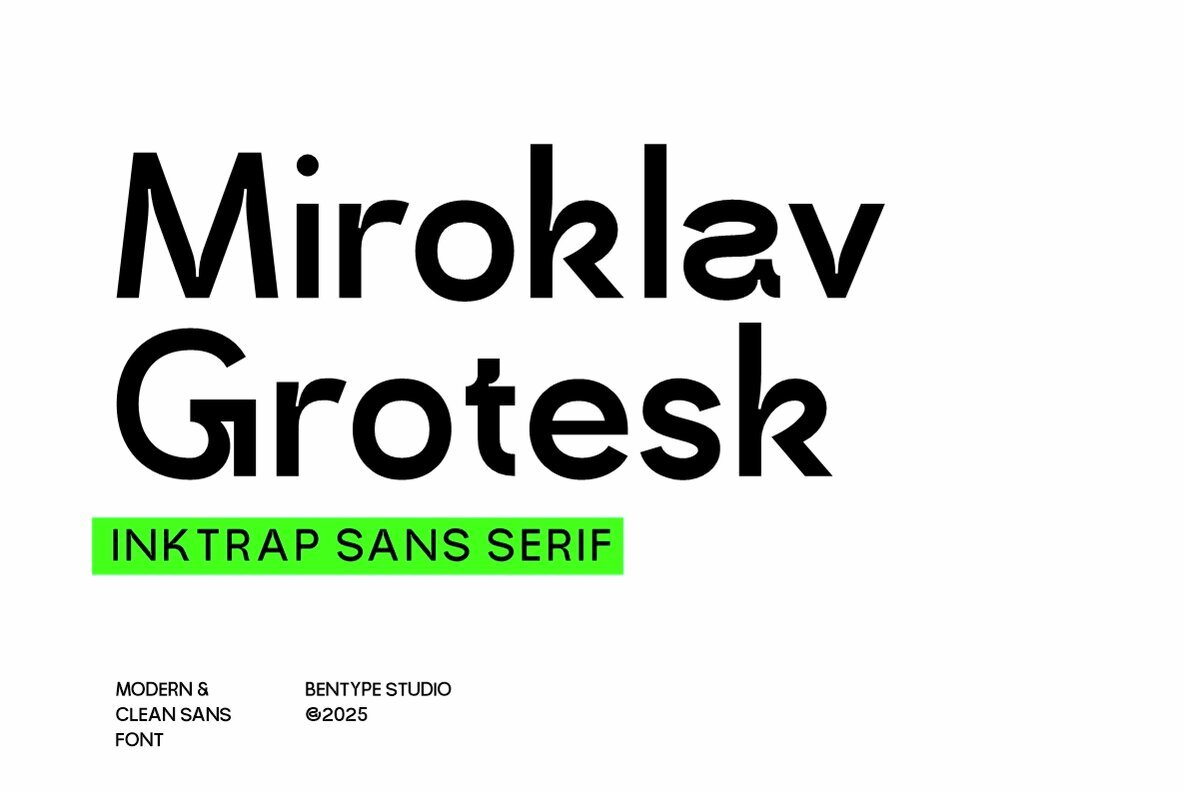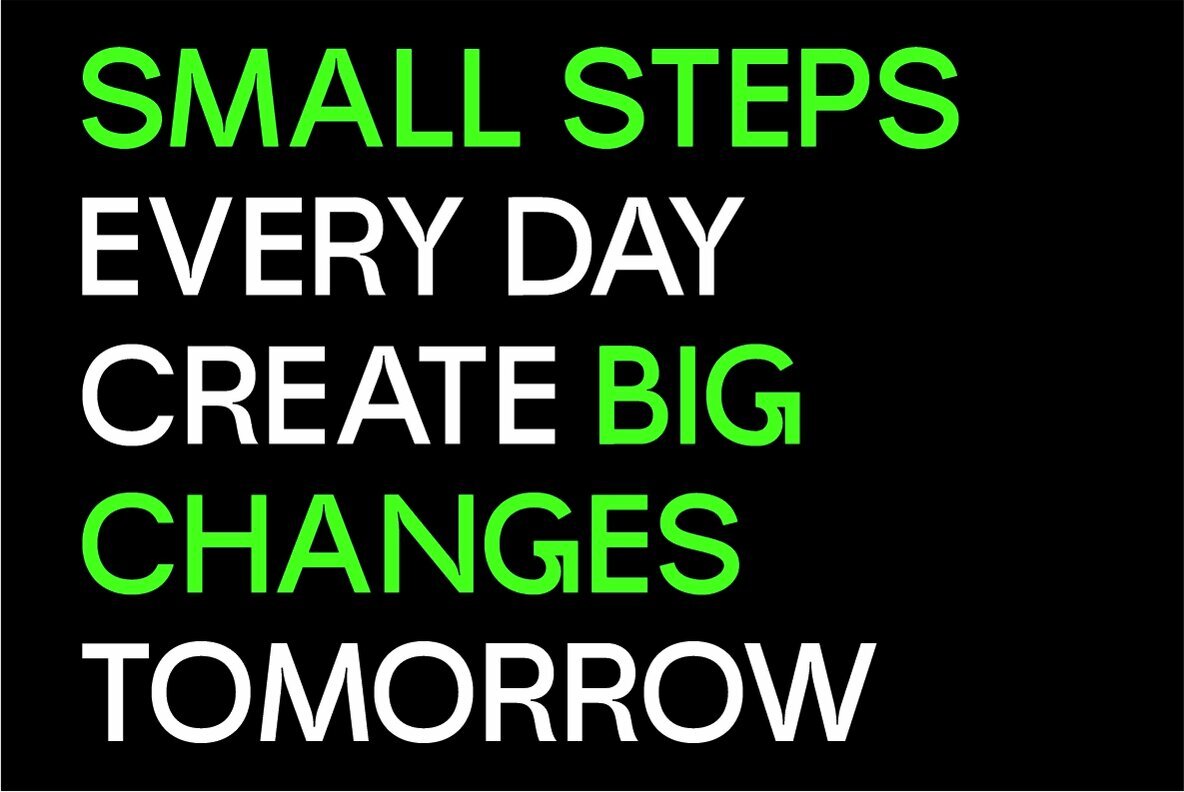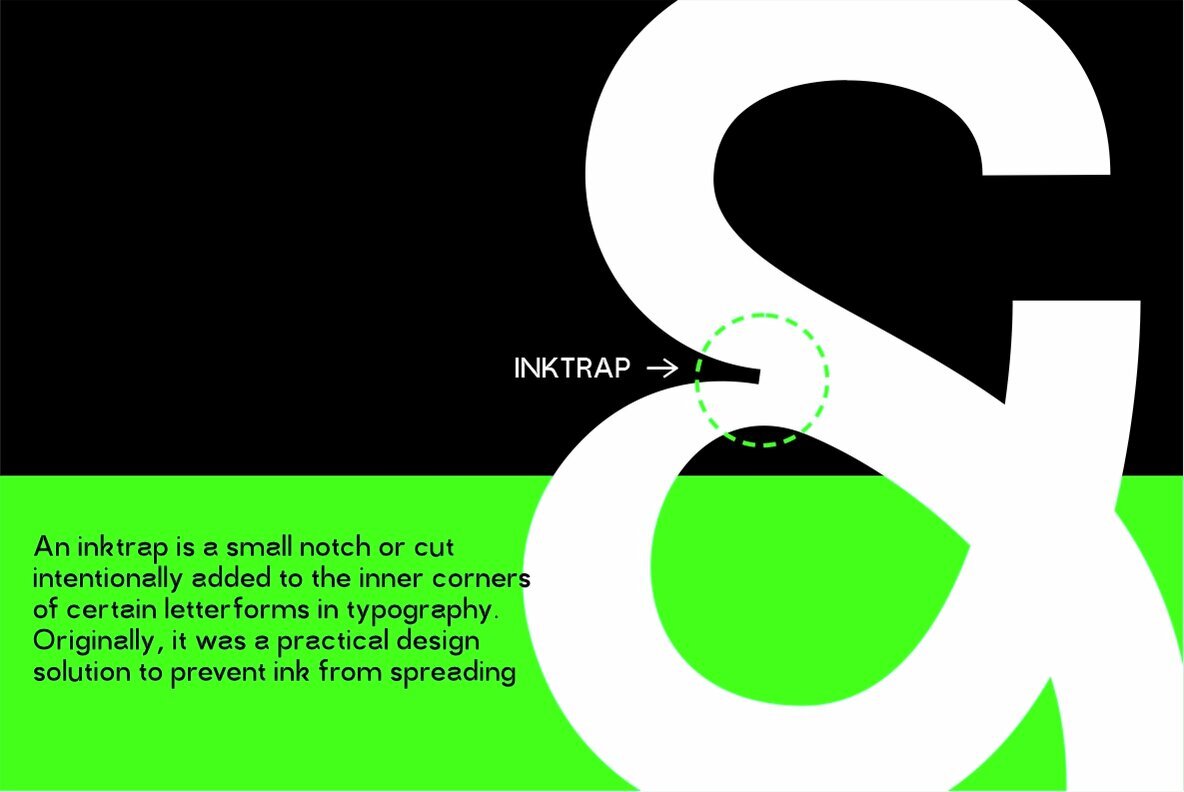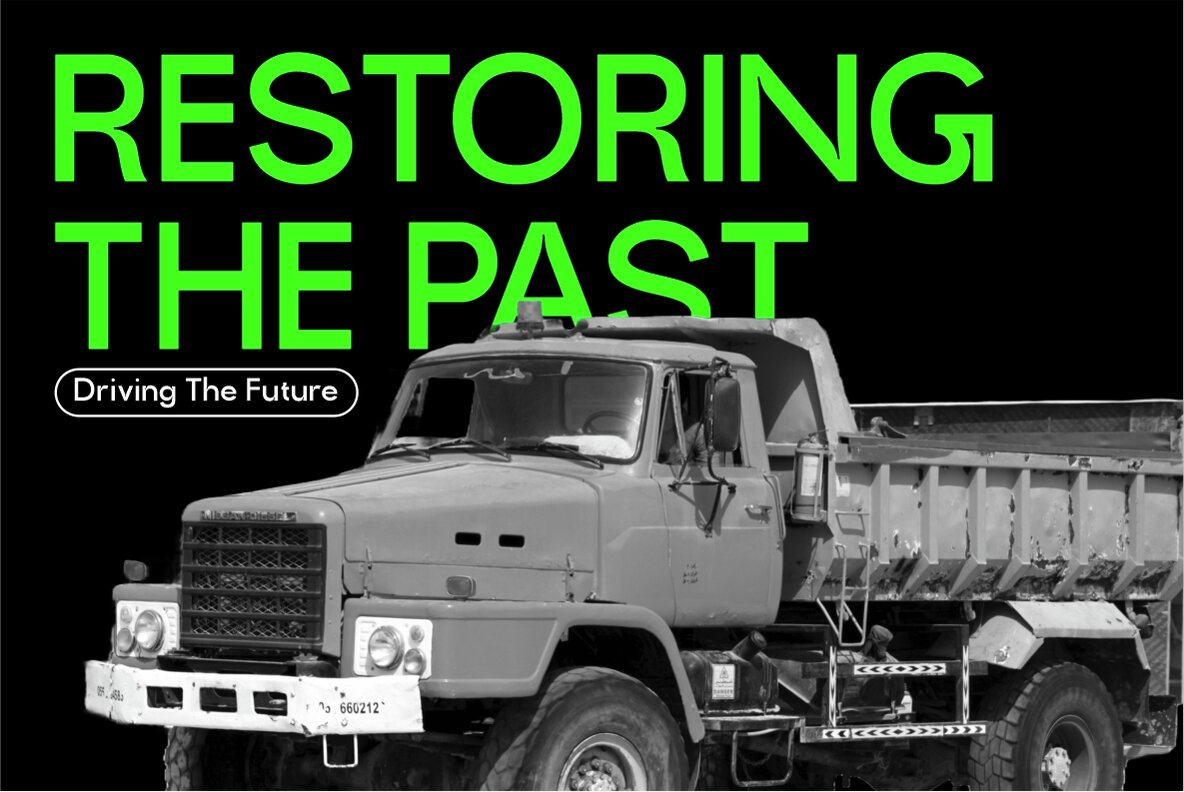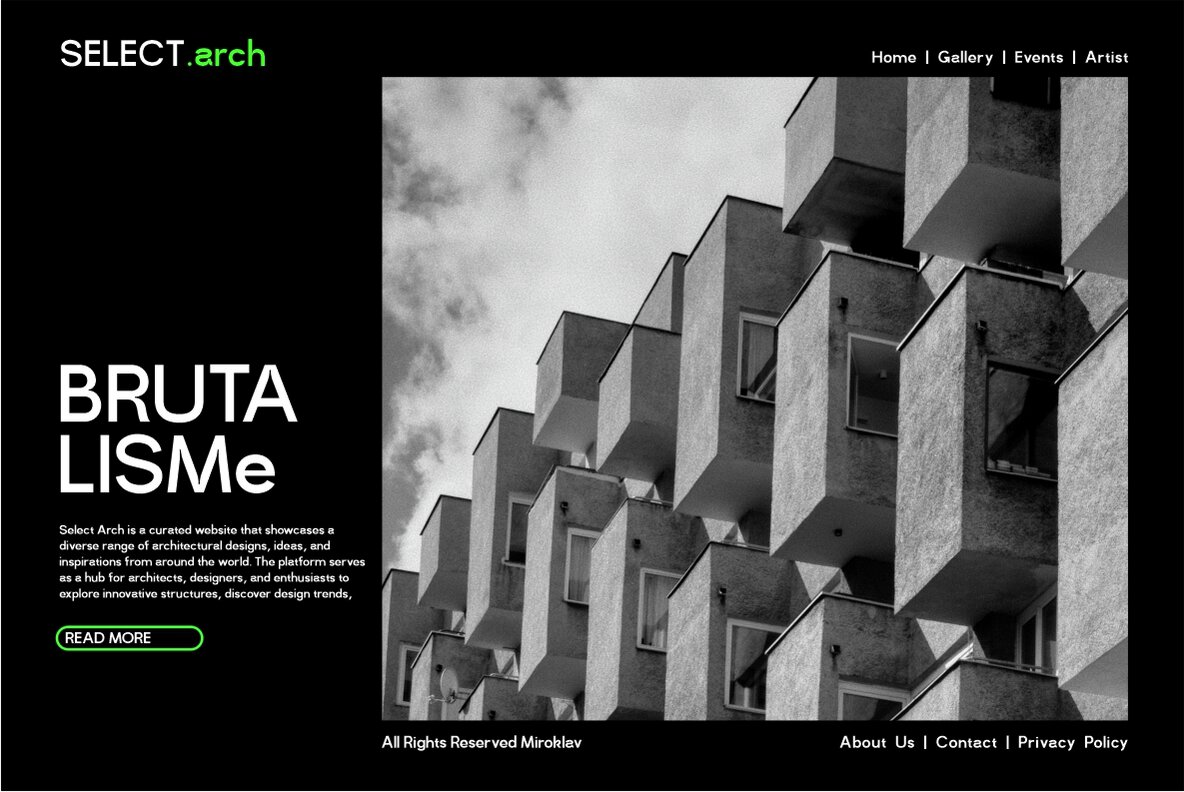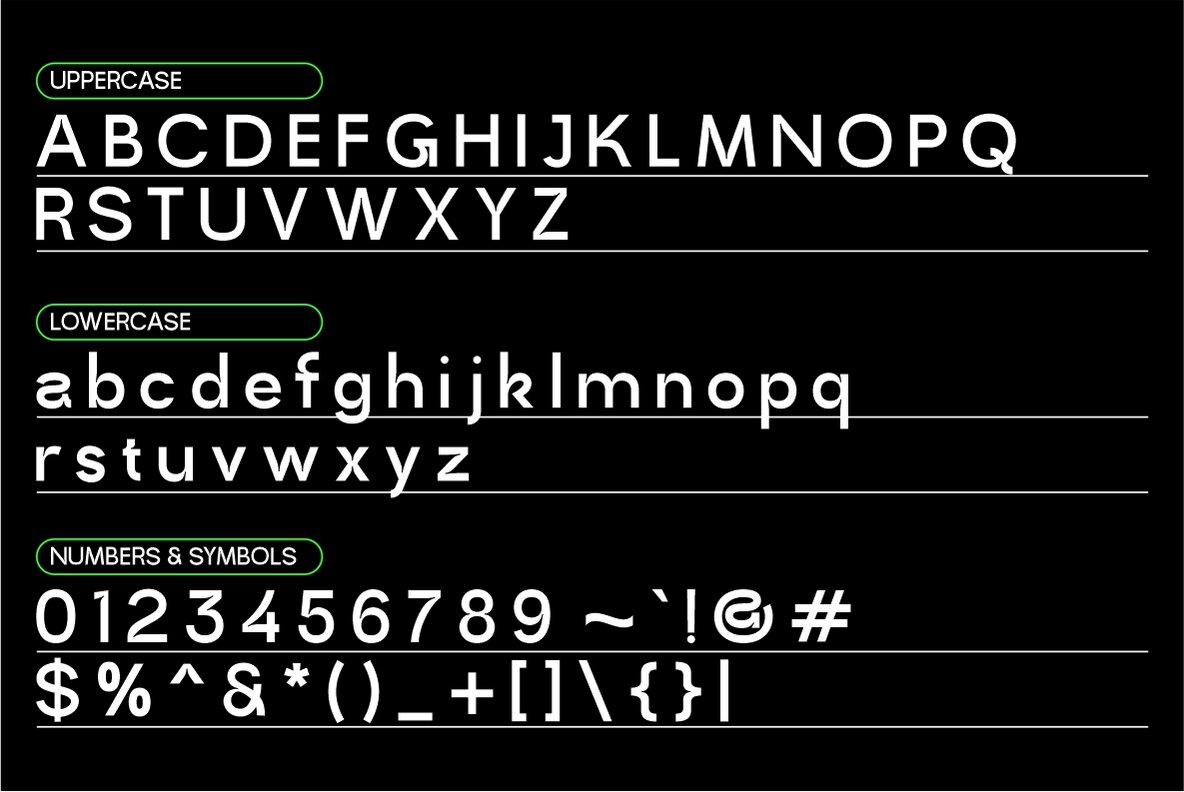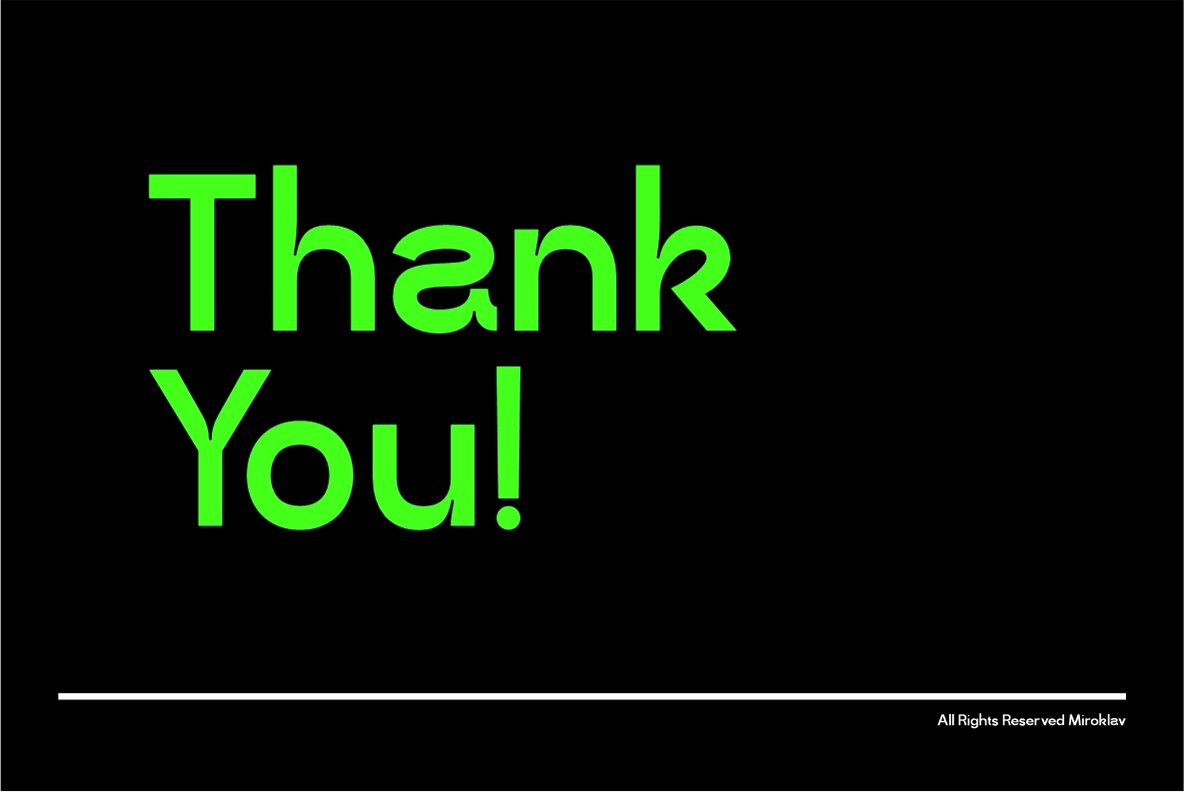
Miroklav Font
MIROKLAV
Miroklav Grotesk, a distinctive inktrap sans display font, captures attention with its unique stems and joins. While pixel fonts may face character set and resolution limitations, they continue to thrive due to their nostalgic charm and striking visual appeal. This condensed style font seamlessly fits various display purposes, enhancing the impact of headlines, banners, and more.Miroklav Grotesk: Bold Inktrap Sans for Modern Displays